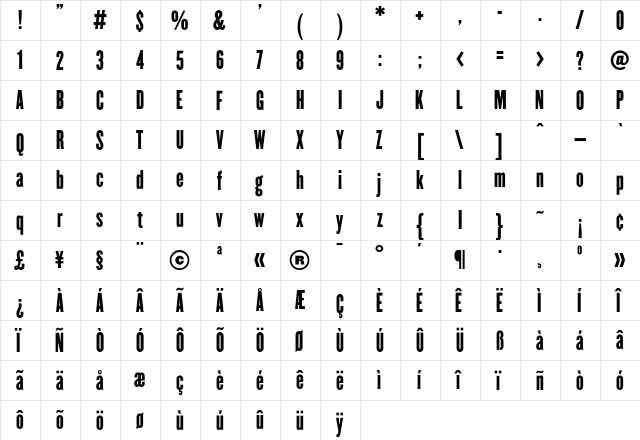
Champion HTF-Featherweight
Design Context for Champion Typeface
Champion takes a measured approach to typography — its balanced proportions and neutral character make it a reliable workhorse for both digital and print work.